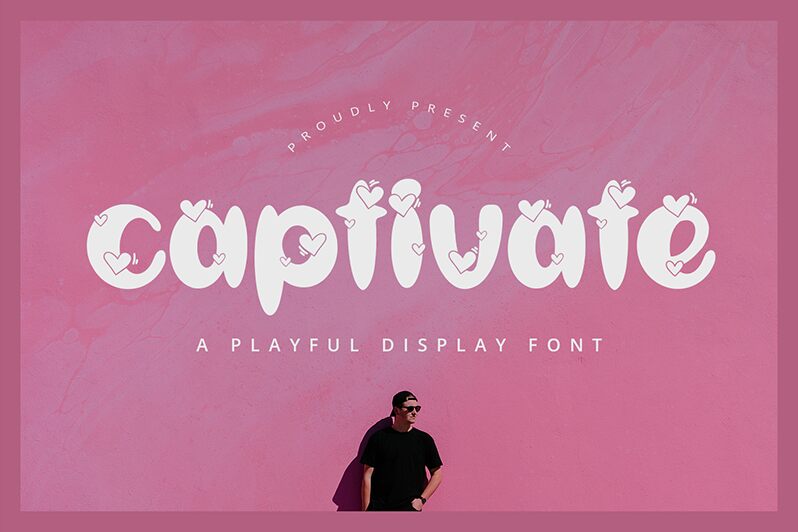
Captivate
Captivate, designed by Alpaprana Studio, is a font that truly lives up to its name with its enchanting valentine and decorative style. Its bold weight ensures that each character makes a striking impact, with playful heart embellishments that evoke feelings of love and affection. This charming typeface seamlessly blends aesthetic appeal with whimsical elegance, making it an ideal choice for projects that require a touch of romance and creativity.
Whether it's for wedding invitations, greeting cards, or branding for boutique businesses, Captivate promises to add a personal and heartfelt touch. Its distinctive style sets it apart from conventional fonts, ensuring your message is not just read but truly felt. With Captivate, your designs will not merely be seen—they'll be remembered.